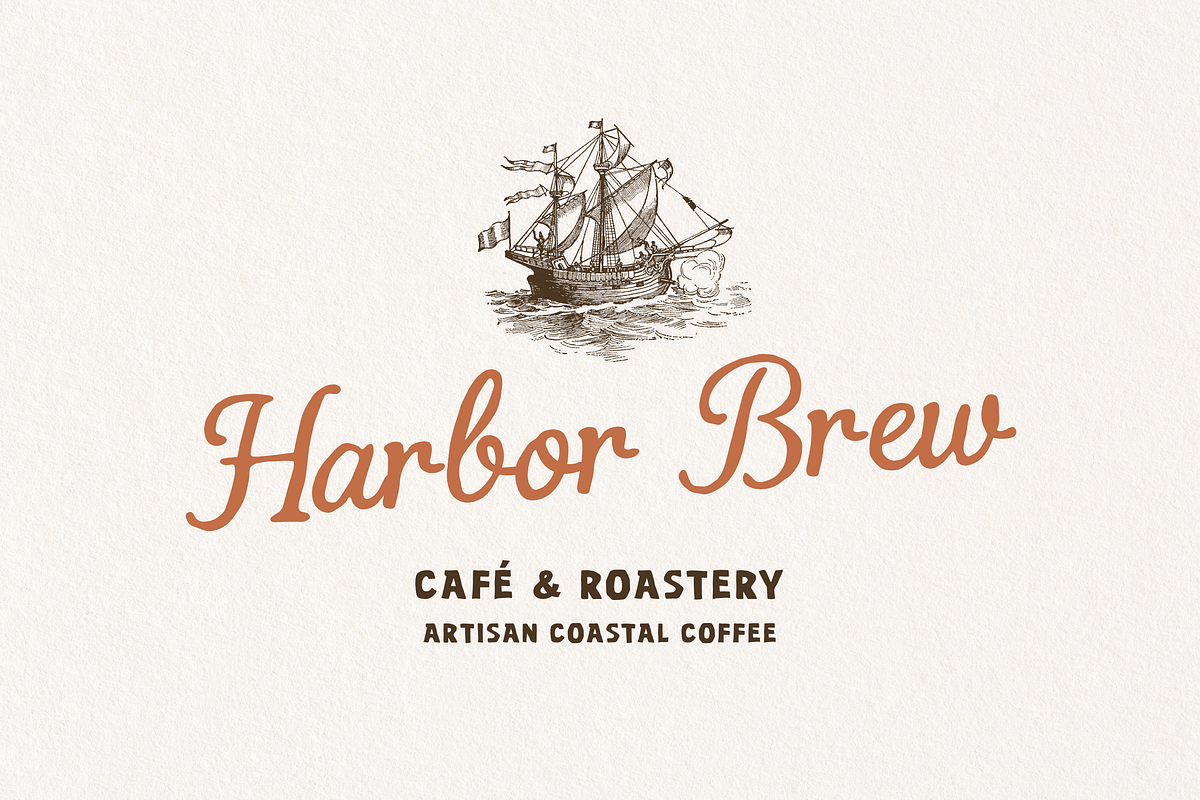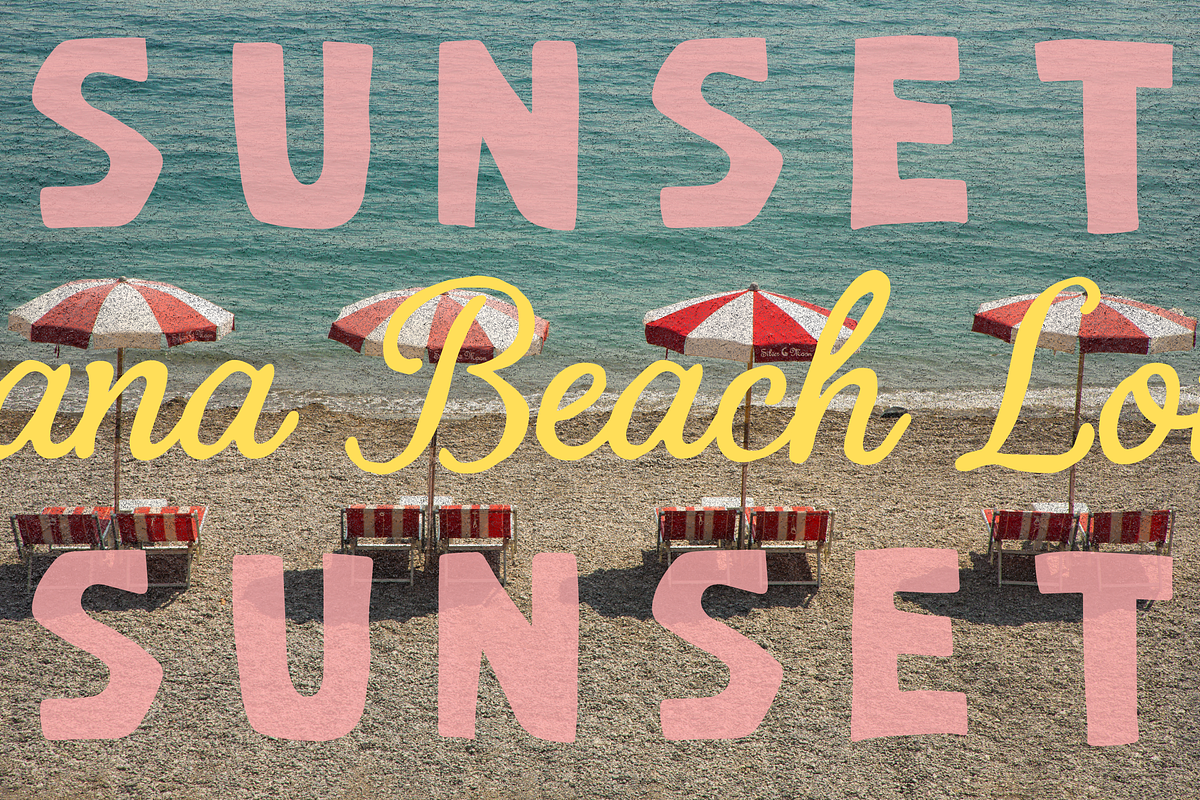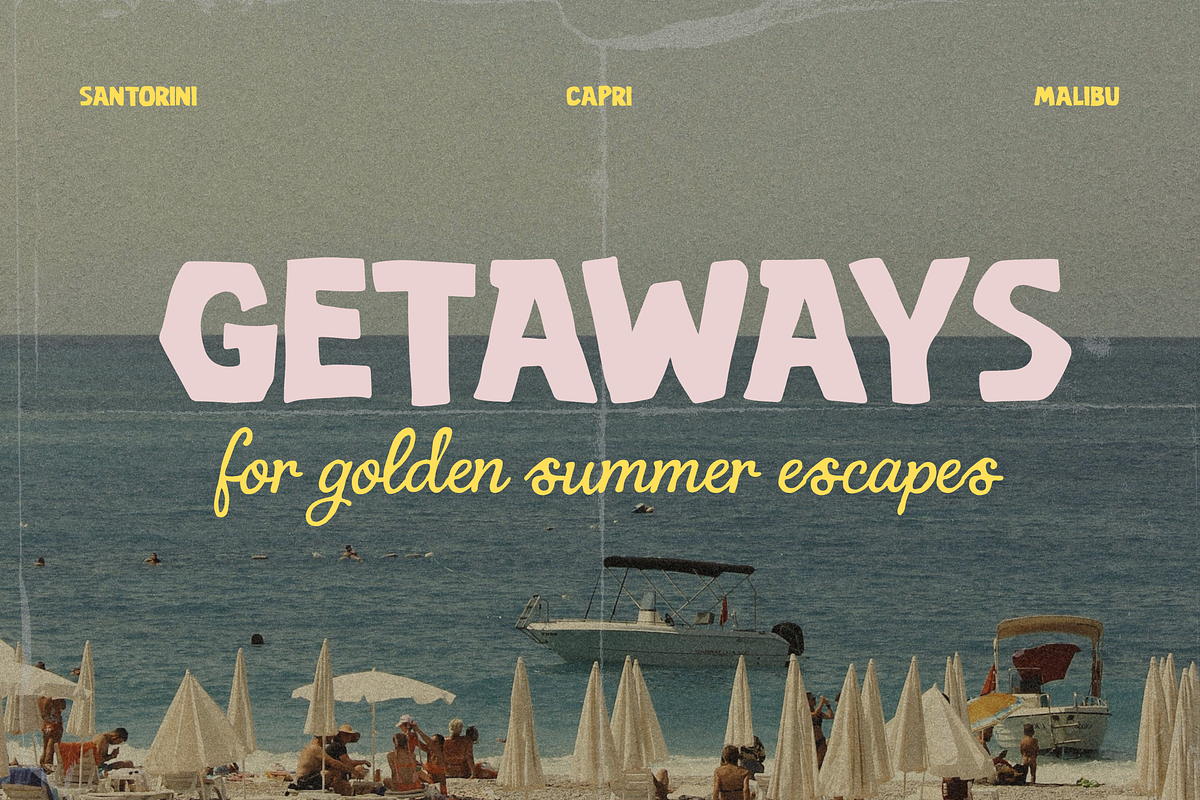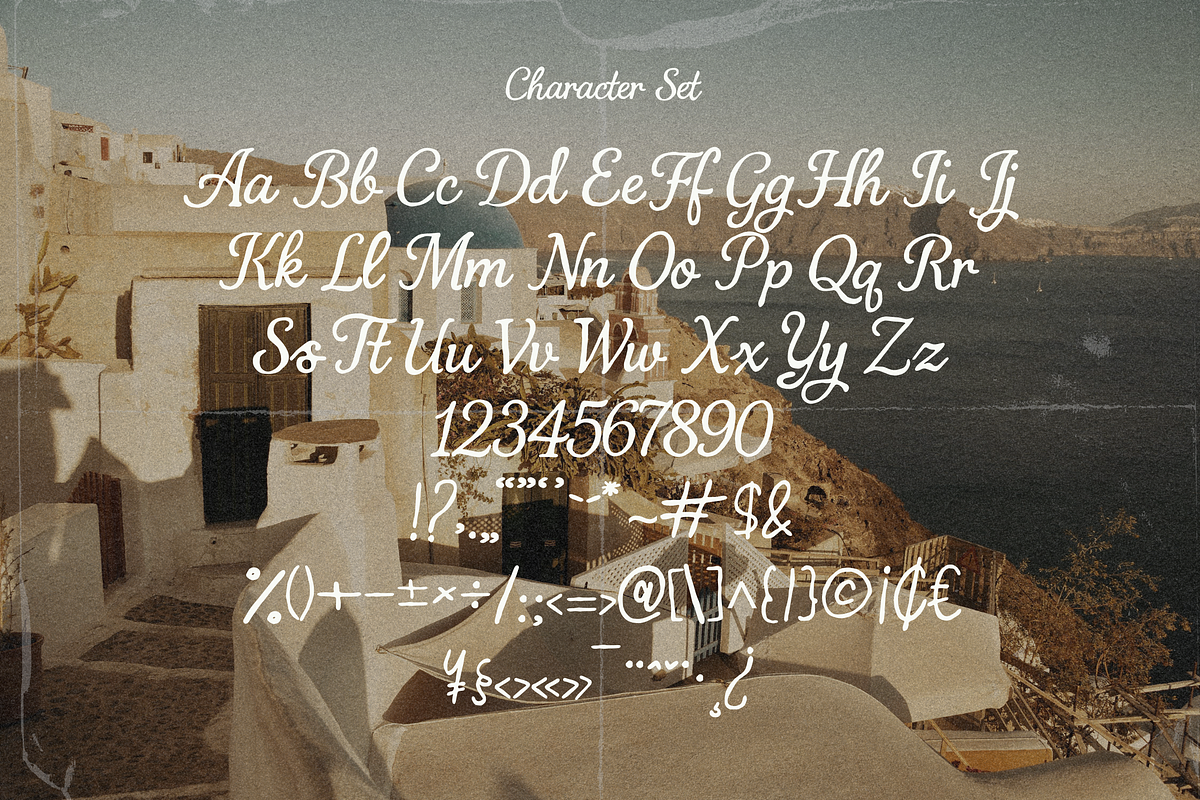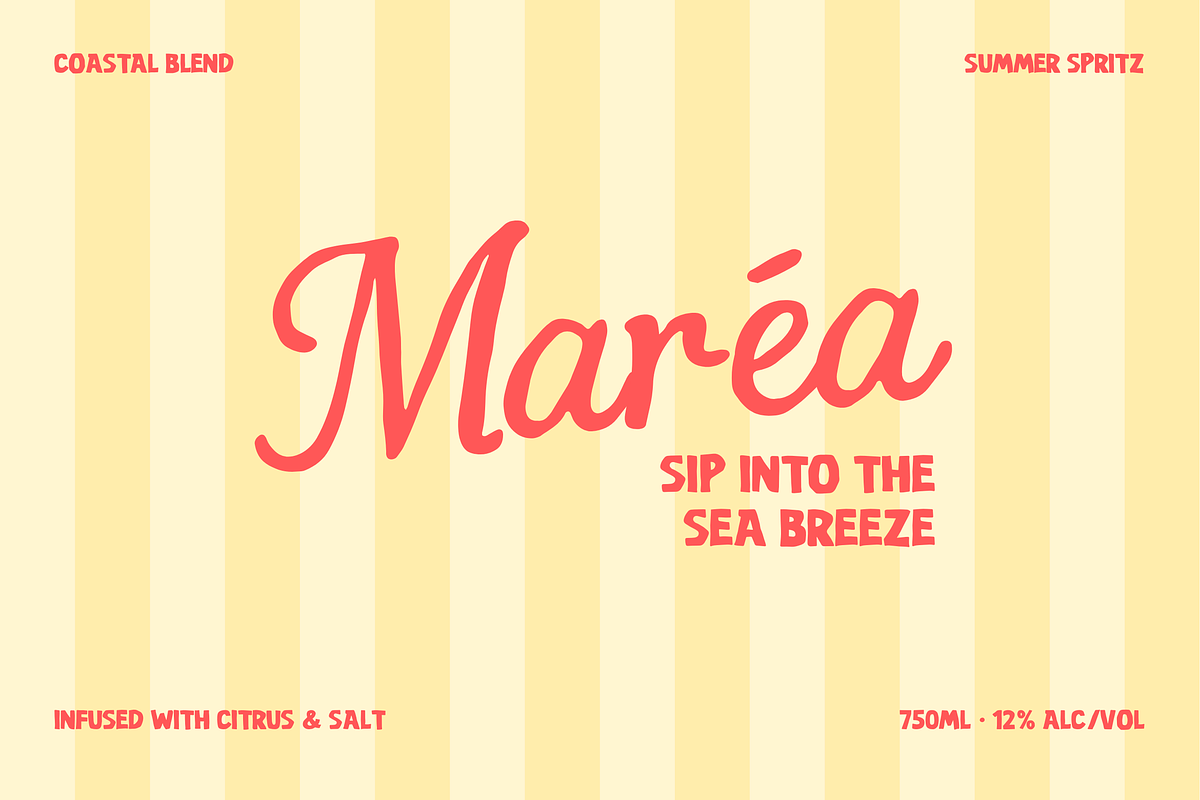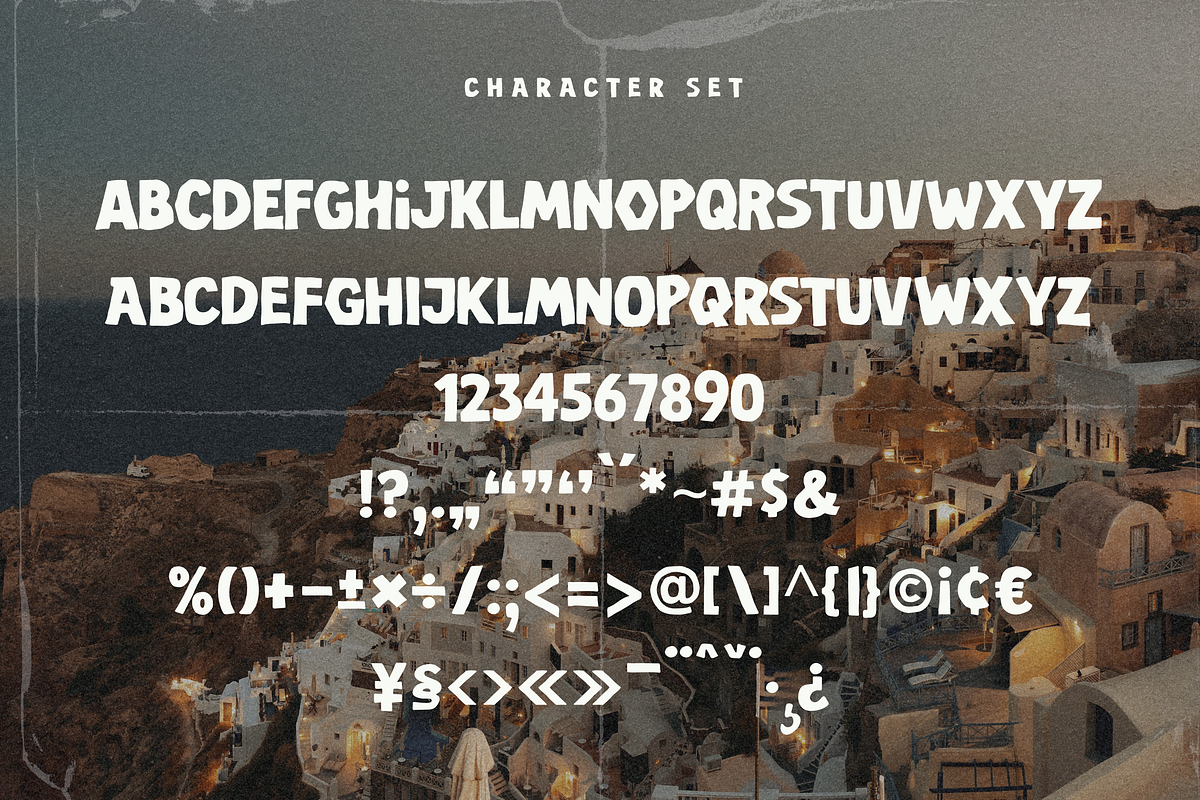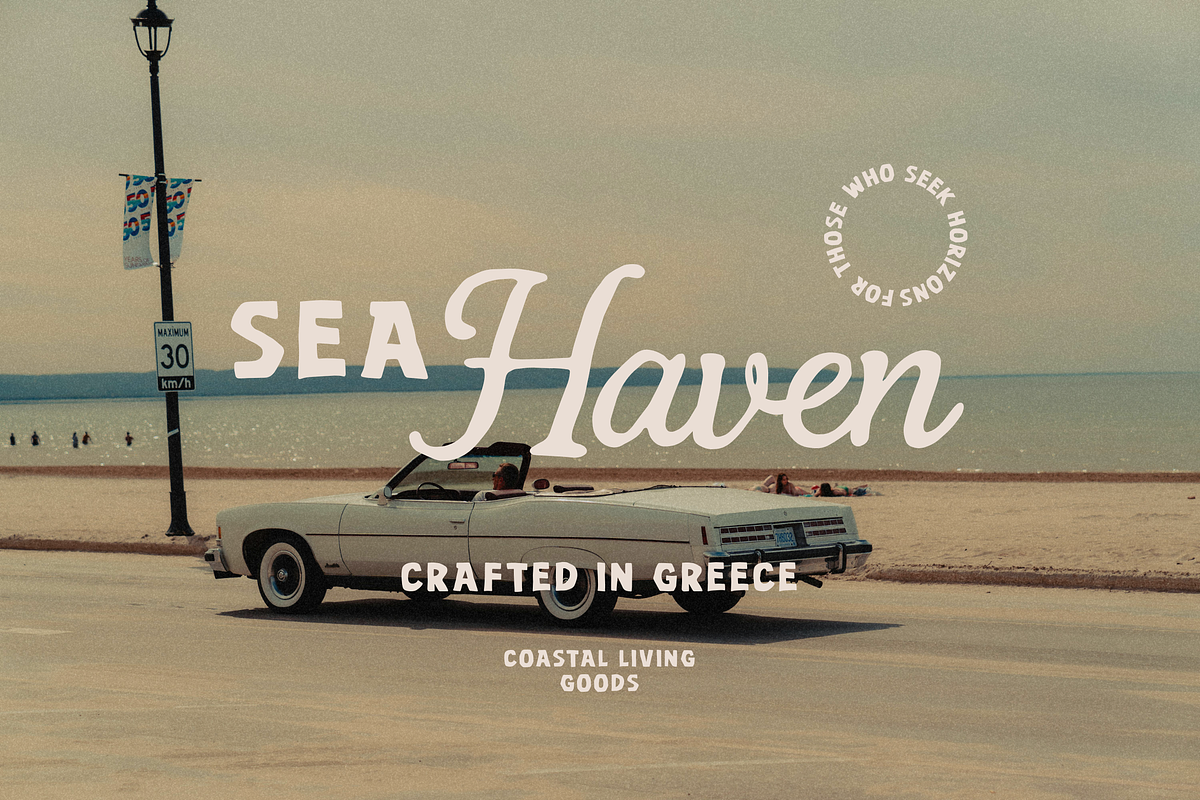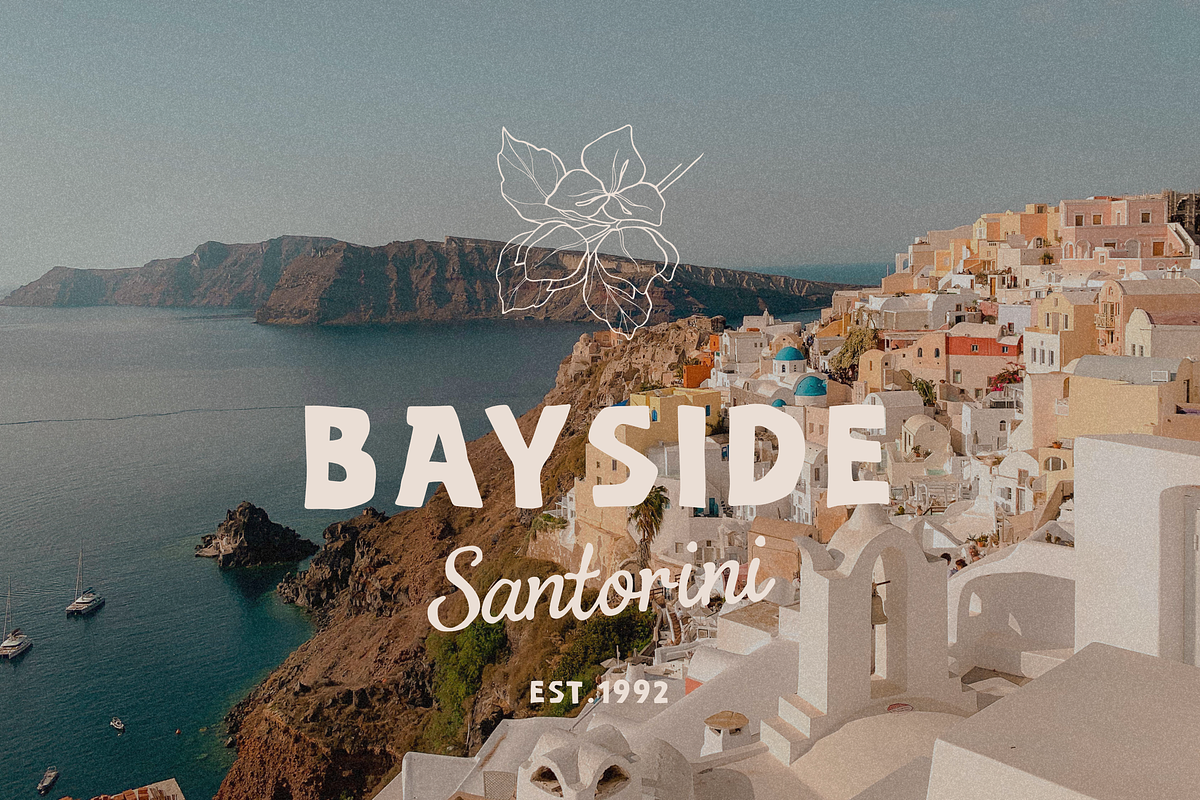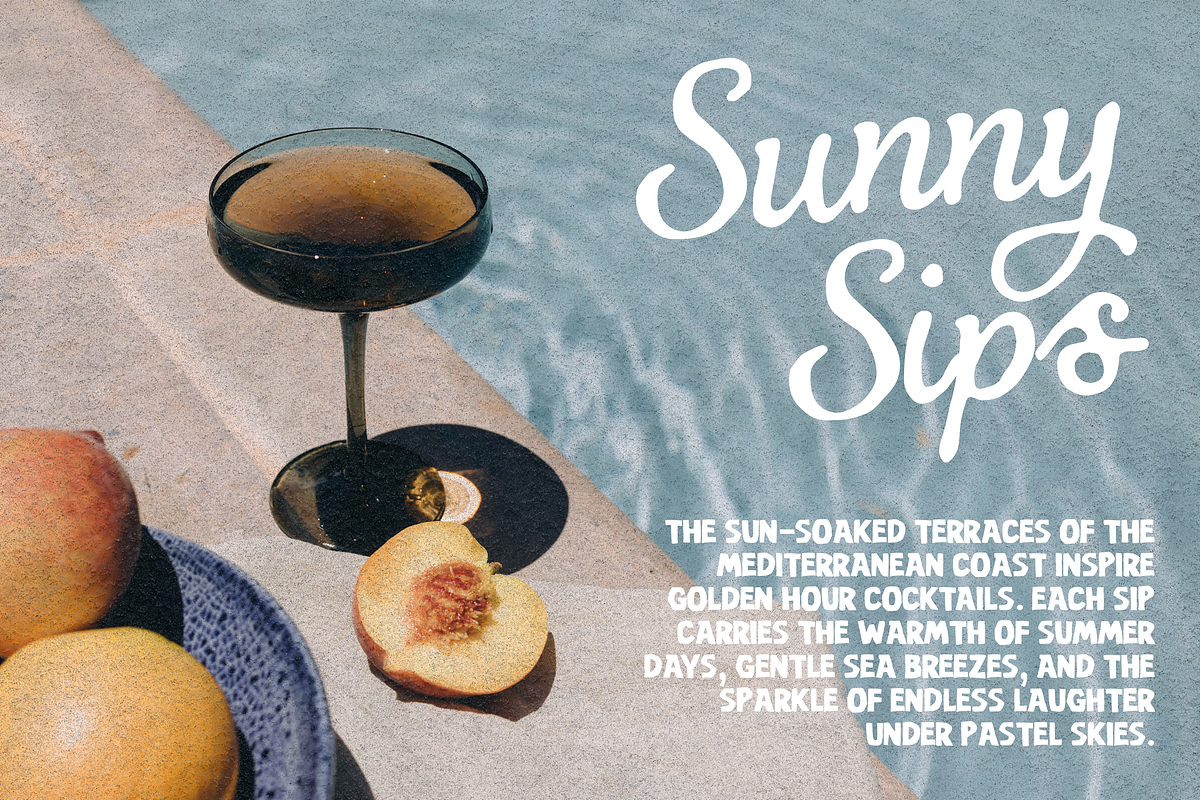
Costa Brisa – Retro Summer Font Duo
Costa Brisa – Retro Summer Handwritten Script & Sans Font Duo
Bring the charm of sun-soaked coastlines and vintage summer vibes to your designs with Costa Brisa. This font duo combines a bold, retro sans serif with a breezy handwritten script, ideal for evoking the warm nostalgia of Mediterranean escapes.
Whether you’re crafting dreamy travel posters, chic café branding, or playful packaging, Costa Brisa delivers a timeless yet fresh look. Its hand-drawn imperfections, soft curves, and versatile pairing make it ideal for a wide range of applications, from logos and social media graphics to label designs and editorial layouts.
- Coastal & summer-themed branding
- Retro travel posters & postcards
- Café, bar, and boutique signage
- Product packaging & labels
- Social media & editorial design
Capture the golden warmth of summer breezes and sparkling shores — with Costa Brisa, every word feels like a getaway.